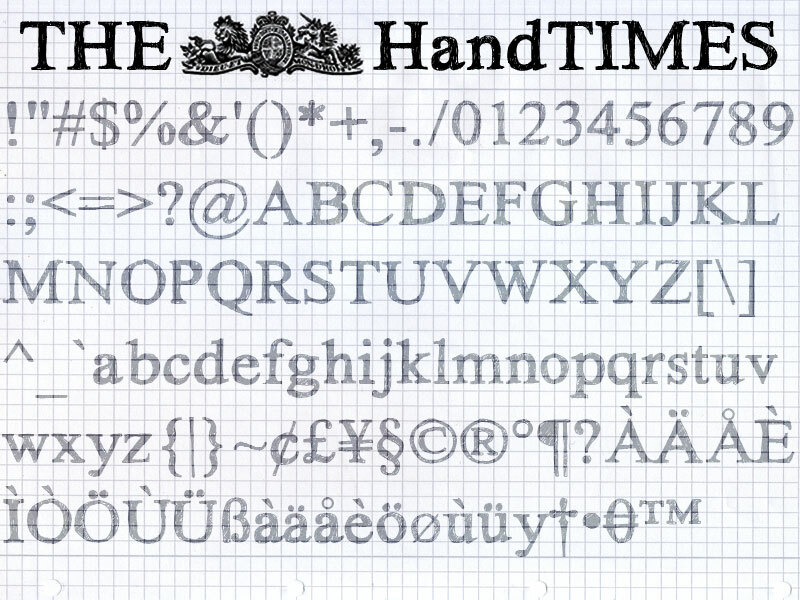
HandTIMES by Manuel Viergutz, known as eM-Vii, is a free eroded serif display font rooted in formal newspaper type. Its tall capitals have sharp bracketed serifs and pronounced shifts between thick and thin strokes. Scratched interiors and ragged edges resemble printing that has been repeatedly handled rather than uniformly distressed.
Its worn print character points toward historical drama and old publishing. It can give book covers, theater posters, and period-themed packaging the look of type pulled from an aging broadside. The familiar Roman structure keeps the lettering grounded, but the uneven damage suits designers working with archival imagery, literary subjects, or vintage ephemera.
The demo font handTIMES includes accented characters.